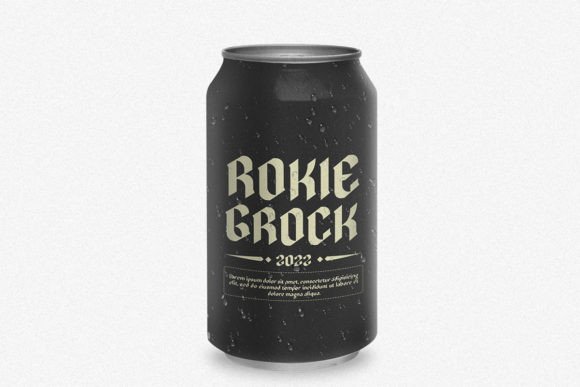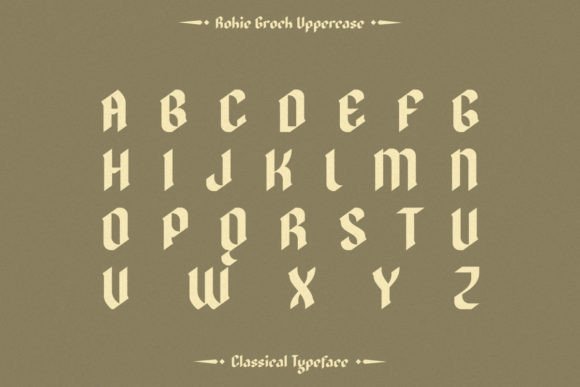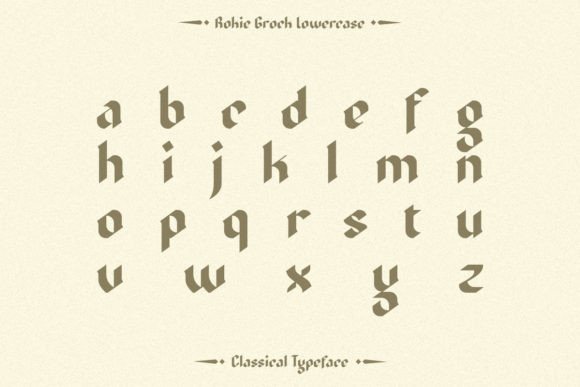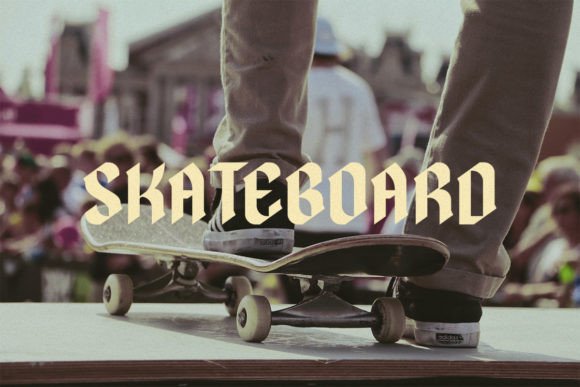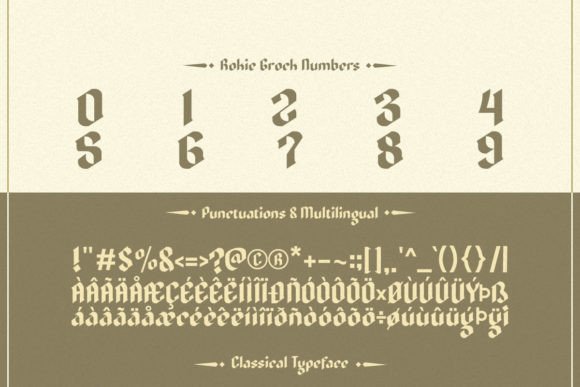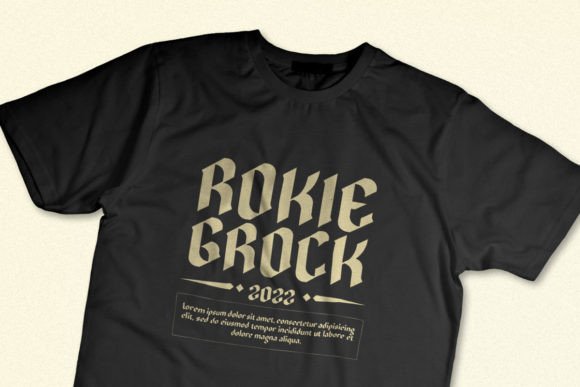
Introduction to Rokie Grock Font
Rokie Grock Is a display font with an elegant modern style, it adds a bold touch to your projects and will inspire you to create something unique and modern.
Rokie Grock is ideal for headings, flyers, greeting cards, product packaging, book covers, printed quotes, logotype, apparel designs, and album covers This font is PUA encoded, which means you can access all of the glyphs and swashes with ease.
Key Features of Rokie Grock Font
Why Choose Rokie Grock Font?